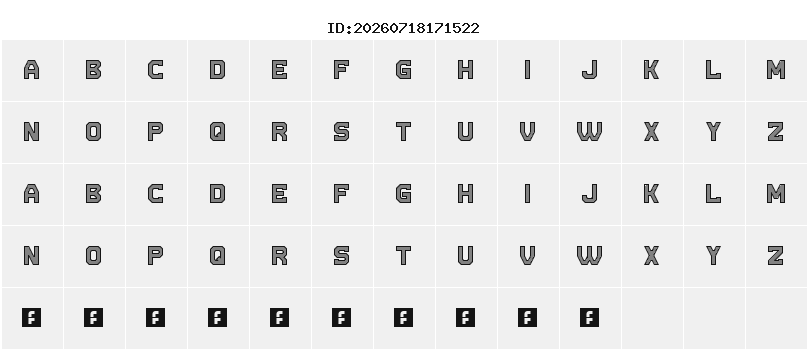
• Font Name: Cut the paper
• Designer: Neoqueto
• Description: “Cut the paper” was built with FontStruct
Cut the paper.ttf is a modern, elegant sans-serif font designed for ultimate readability and visual harmony. Perfect for branding, headlines, web design, and print materials.